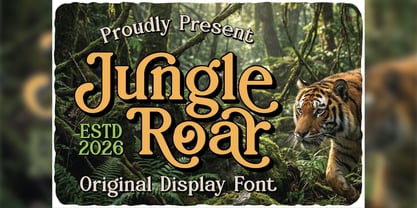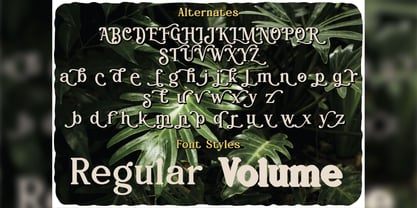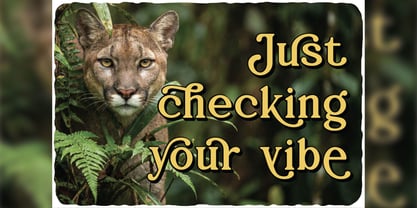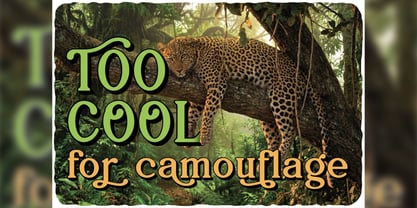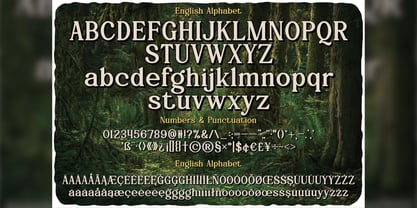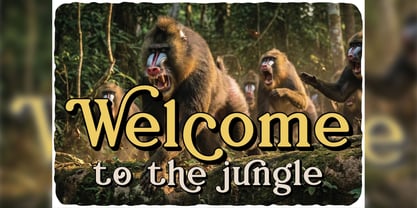
Jungle Roar
by Vozzy
The Jungle Roar Font Family was designed by Oleg Voznyy and published by Vozzy. Jungle Roar contains 2 styles and family package options. More about this family
Introducing "Jungle Roar," a distinctive font designed to make a statement in headlines and accent inscriptions. Perfect for capturing attention, this font features a wide array of additional characters, punctuation marks, and multilingual options, along with numerous alternate characters—ensure your software supports these OpenType features for optimal use. "Jungle Roar" will elevate your designs, adding a bold and vibrant touch that stands out in any creative project, from branding to editorial layouts.
Designers: Oleg Voznyy
Foundry: Vozzy